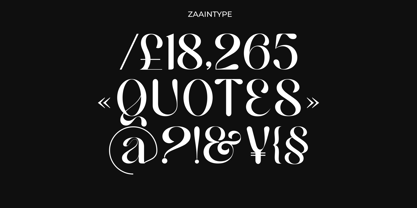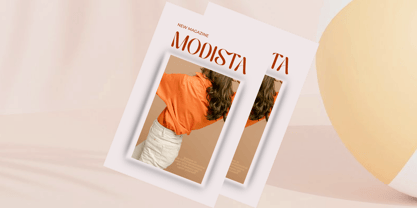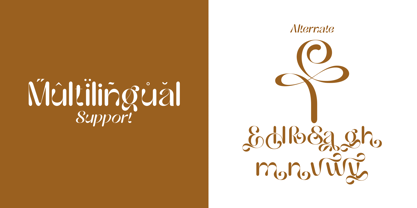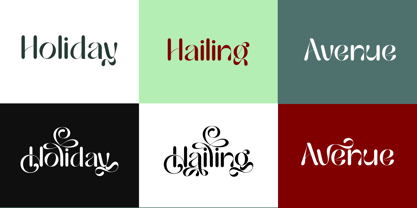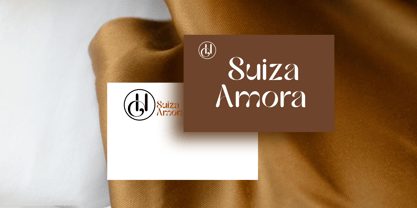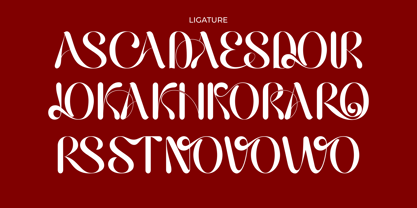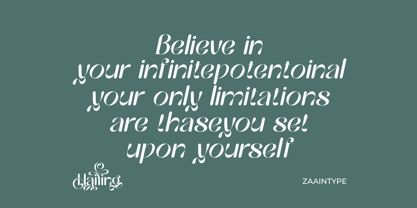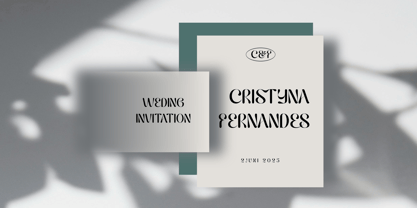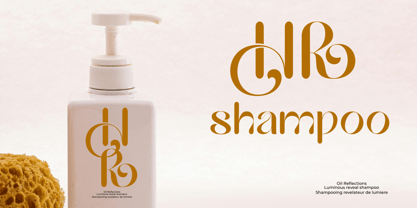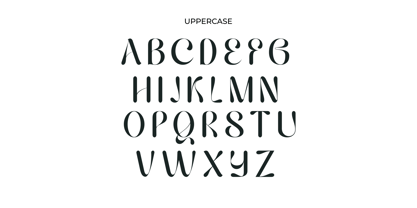
Hailing
by Zaain Type
The Hailing Font Family was designed by Ju Naen and published by Zaain Type. Hailing contains 2 styles and family package options.
Hailing is a rounded sans serif that blends warmth and modern clarity in a clean, approachable design. With two styles—Regular and Oblique—it’s perfect for branding, packaging, and digital interfaces that need to look friendly, fresh, and professional.
Soft in form, strong in presence. Hailing delivers charm with confidence